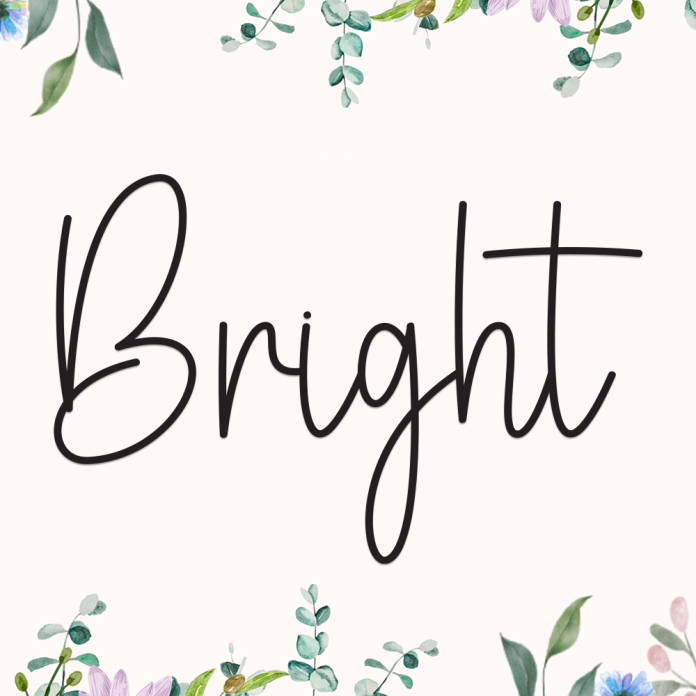
Bright is a playful and lively handwriting font that radiates positivity and warmth. Its slightly bouncy letters and smooth strokes mimic natural handwriting, making it perfect for casual and heartfelt designs.
Whether you're designing greeting cards, children's projects, social media posts, or personal branding, Bright brings a joyful, handwritten charm to every word.
Handwriting style with a casual, friendly look
Great for quotes, packaging, birthday cards, and DIY crafts
Easy to read and full of personality
Let your designs shine with the happy and personal touch of Bright.